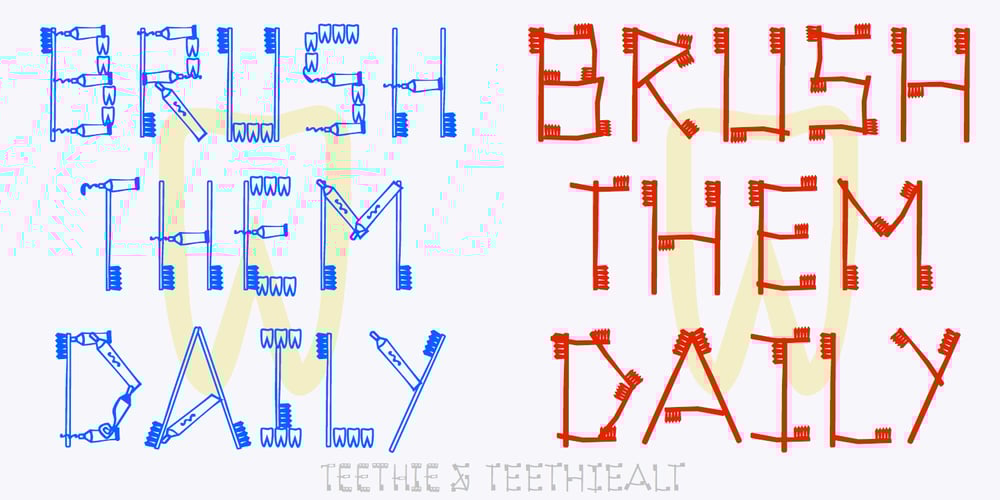
Teethee Font Family was designed by Robert Schenk and published by Ingrimayne Type. Teethee contains 2 styles and family package options. Teethee is a font family dedicated to oral hygiene. The characters are made from toothbrushes, toothpaste and toothpaste tubes, and teeth. Both fonts in the family are caps only, but most letters on the lower-case keys differ from those on the upper case keys.